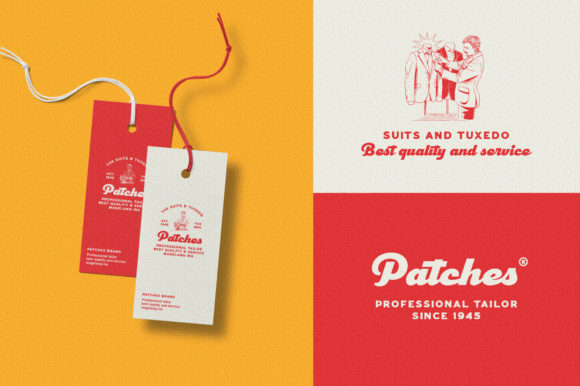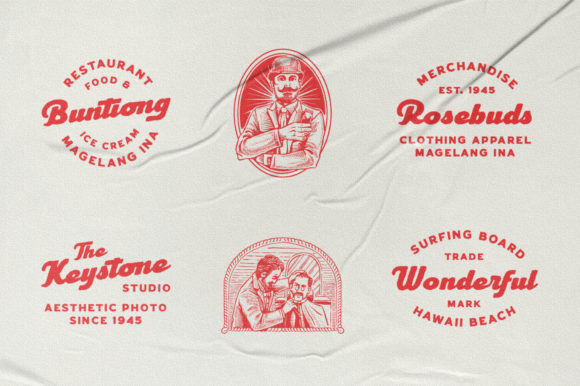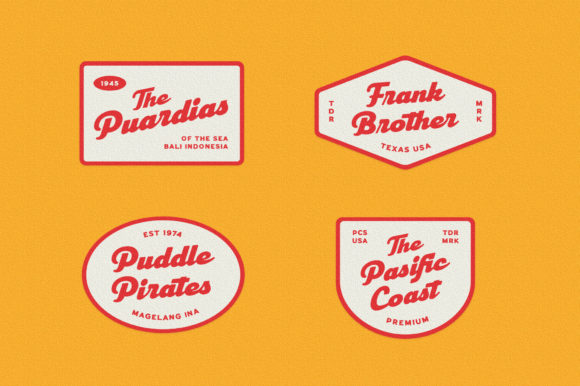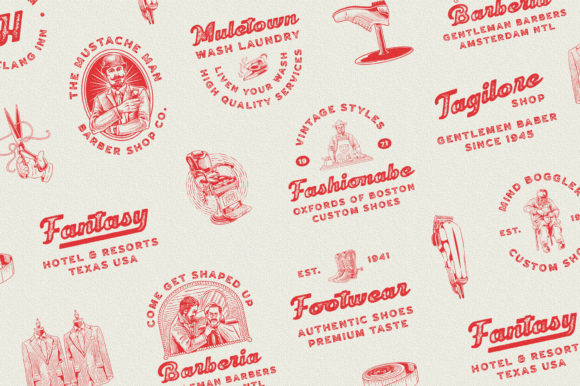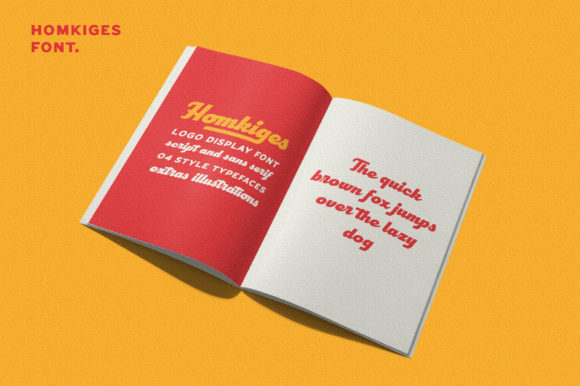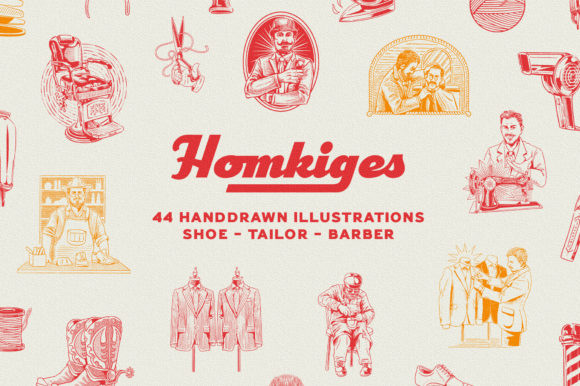
Introduction to Homkiges Font
Have you ever stared at a blank canvas, trying to bring a creative project to life, only to be limited by the right design resources? As designers, we’ve all been there. The struggle is real, especially when it comes to finding the perfect font to match our vision. But what if I told you there’s a game-changing solution that’s about to elevate your design game?
Enter the Homkiges Font, a stunning collection of sans serif, script, and dingbats that will take your designs to new heights. With its high-quality glyphs and swashes, you’ll be able to create outstanding logo designs, posters, labels, and more with ease. Plus, its transparent background makes it a versatile design resource that’s perfect for any project.
Key Features of Homkiges Font
- Unique, hand-drawn design with a transparent background, ideal for creative projects.
- High-quality, professional font available for free download, perfect for designers and artists.
- Perfect for use in logos, branding, and other design resources where a distinctive, creative touch is needed.
Honest Review: Homkiges Font
As a designer, I’m always on the lookout for high-quality fonts to enhance my creative projects. Recently, I stumbled upon the Homkiges Font, and I must say it’s been a pleasant surprise. With its transparent background, this font is perfect for designs that require a subtle yet effective look.
Here’s what works well:
- ✨ Unique design aesthetic that adds a touch of sophistication to any project
- ✨ Wide range of characters, including uppercase and lowercase letters, numbers, and special characters
- ✨ Easy to read and understand, even at small font sizes
- ⚠️ Not suitable for designs that require bold or dramatic typography
Overall, I’m impressed with the Homkiges Font. It’s a solid addition to any designer’s toolkit, and the free download makes it a great resource for designers on a budget. While it may not be perfect, it’s a great option for designers looking for a high-quality, creative font.
Tips for Getting the Most Out of Homkiges Font
For the best results, use Homkiges Font in combination with other design elements, such as images or graphics. Experiment with different font sizes, colors, and styles to create a unique look. You can also use Homkiges Font for creating a consistent brand identity across all your marketing materials.
Common Use Cases for Homkiges Font
Homkiges Font is suitable for a wide range of creative projects, including social media graphics, posters, presentations, reports, and documents. It’s also a great choice for designing logos, graphics, or websites with a high-quality and professional look.